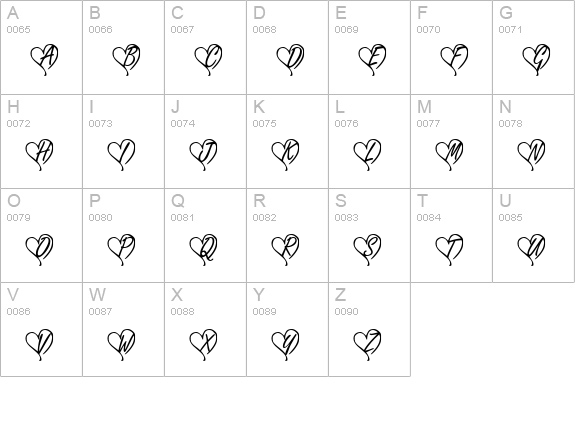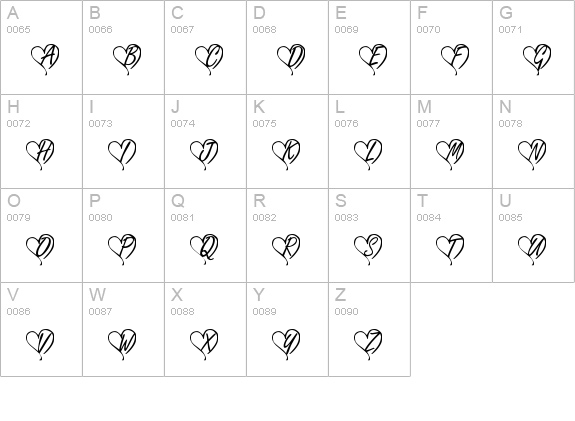
KR Yours Truly Font Details
KR Yours Truly font is a beautiful and elegant typeface that exudes charm and sophistication. With its graceful curves and stylish flourishes, this font is perfect for adding a touch of class to any project. Whether you're designing invitations, greeting cards, or branding materials, KR Yours Truly will elevate your designs to the next level. And the best part? KR Yours Truly font is completely free to download at FontsMarket.com. Simply visit the website, and you can start using this stunning font in your projects without any cost. Don't miss out on the opportunity to enhance your designs with the timeless beauty of KR Yours Truly font. Download it today and let your creativity shine!